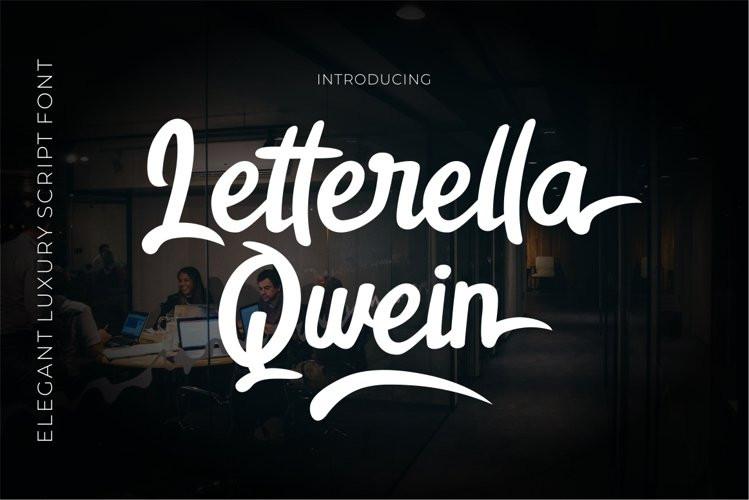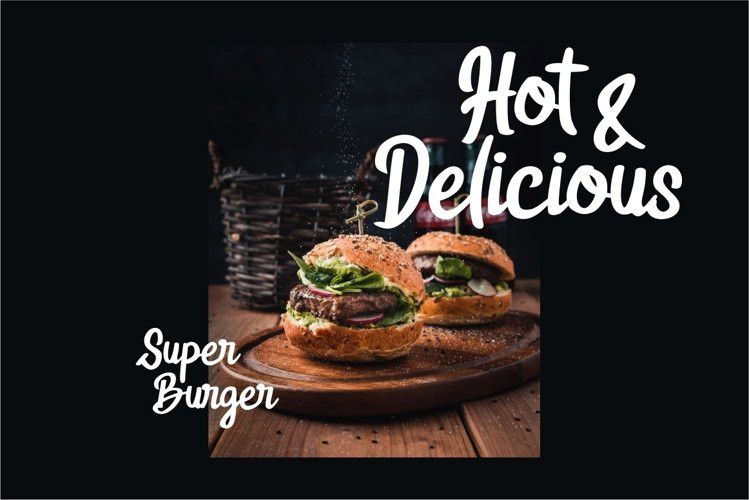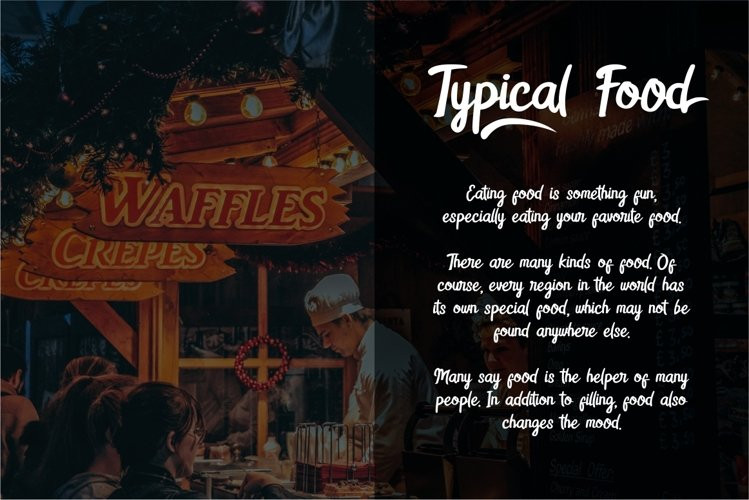
Letterella Qwein Font
According to market demand, fonts are more likely to be modern fonts, so I decided to create an elegant and luxury font that is in your view. The Letterella Qwein font is a cool simple font that is very popular, comes with a modern style hoping to be accepted by the market. We keep this font looking elegant, classy, ​​easy to read, stylish, attractive and easy to use.
Letterella Qwein Font is a great choice for book covers, food menus, wedding invitations, branding, brands, quotes, album covers, beauty, business cards and other projects. The Letterella Qwein font is here to take your design to the next level.